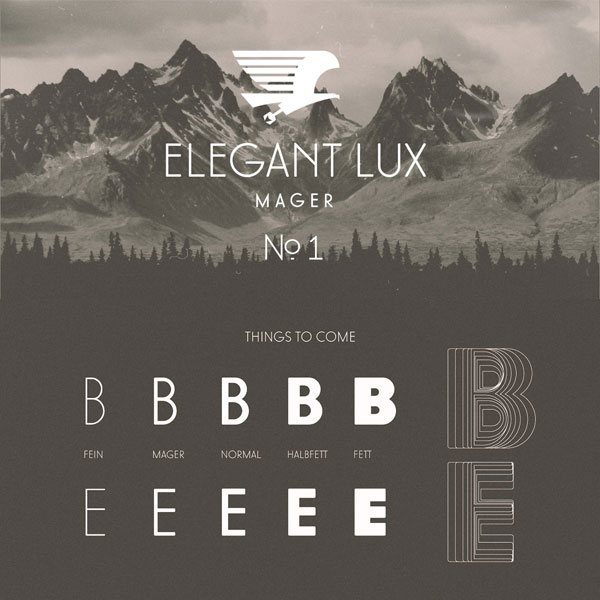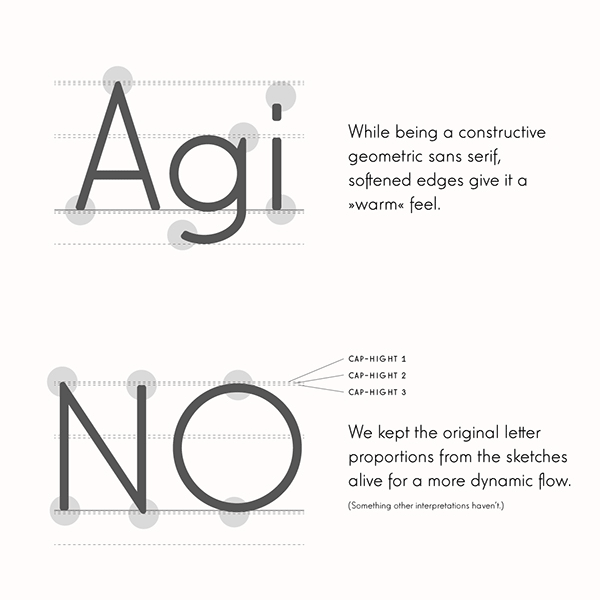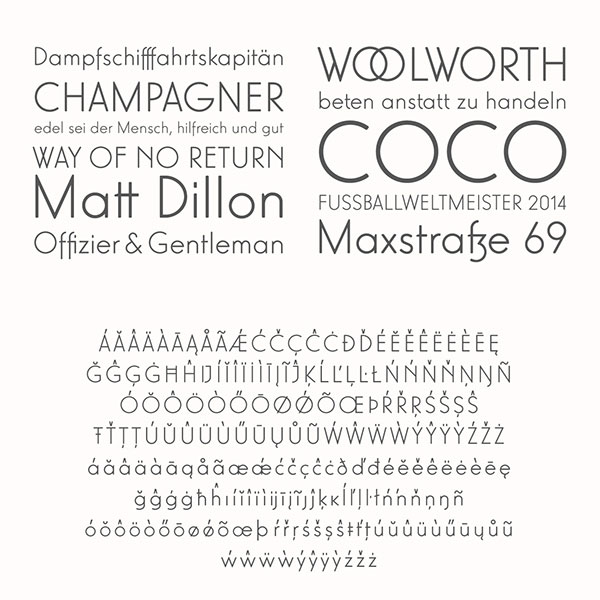
The two German designers Florian Paizs and Hermann Krauss of collective “Wir Sind Schoener” are currently working on this decorative typeface with the name “Elegant Lux Mager”. A free demo version of this elegant sans serif font is currently available for download (only for non-commercial & personal use). Florian Paizs and Hermann Krauss are currently working on 3 matching weights and a layered display version to complete the font family.
It’s a typeface that skillfully combines elegance with the simplicity of clear graphic shapes. While being a constructive geometric sans serif, softened edges give it a warm and pleasant feel. The two designers kept the original letter proportions from the sketches alive for a more dynamic flow. The free demo version consists of more than 600 glyphs, several ligatures, alternates, and multiple language support.